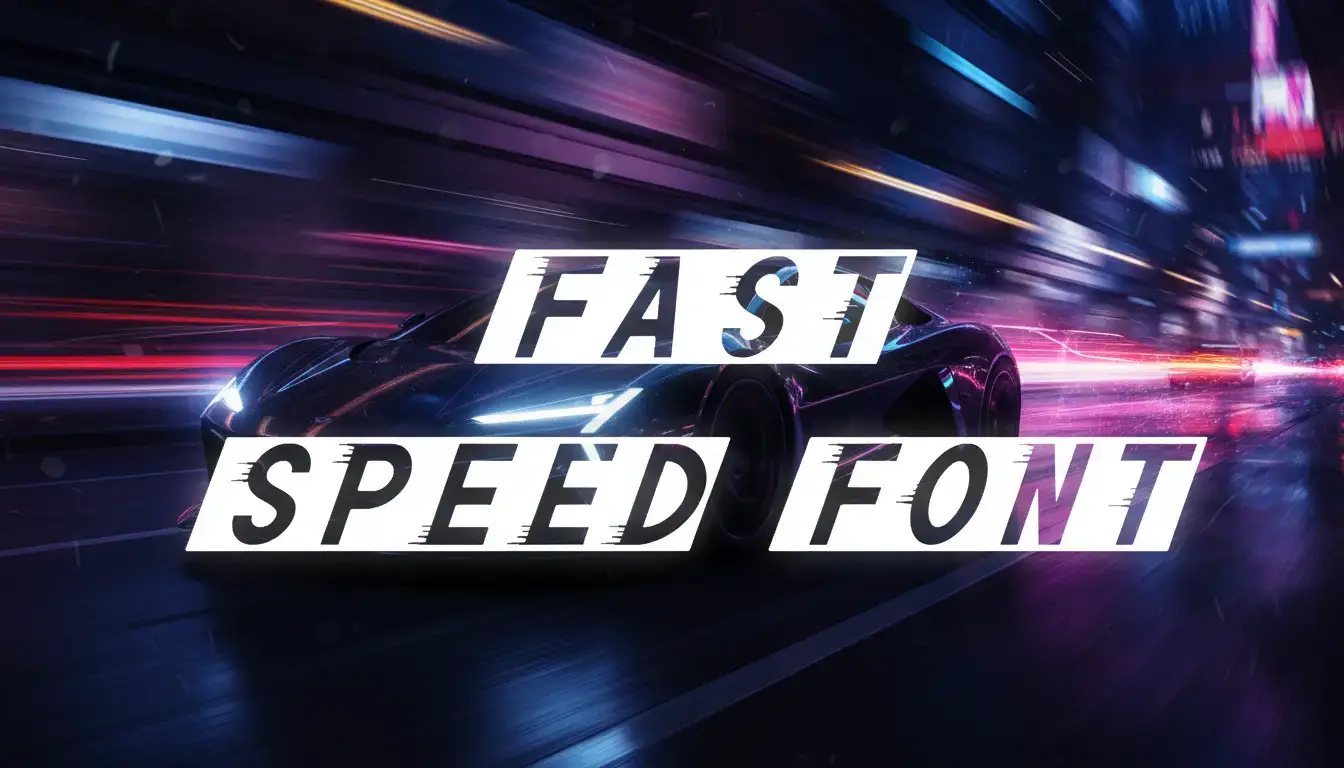
Fast Speed Font
Fast Speed is a fancy font created by Widiyanti & Sarah SP and released through NoahType. It's a decorative display font with plenty of personality, made to grab attention. It's a free download, and you can try it with your own text in the preview above first.
Fast Speed covers the full alphabet in upper and lowercase, plus all ten numbers, so you can set names, dates and prices without switching fonts. Everyday marks like &, !, ? and @ are there too. Thanks to its accented letters, it also works for Spanish, French, German, Portuguese and Italian, not just English.
Fast Speed is a natural fit for posters, logos and eye-catching headlines. Use it for one standout word or headline and let simpler fonts handle the rest.